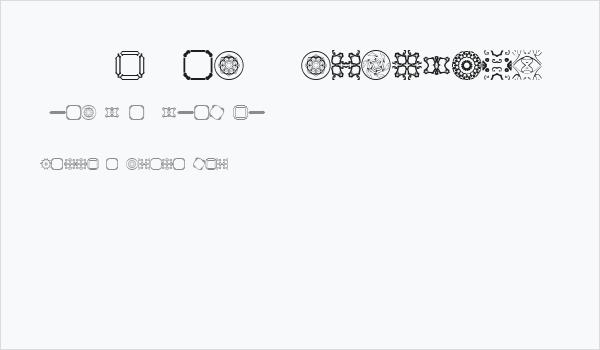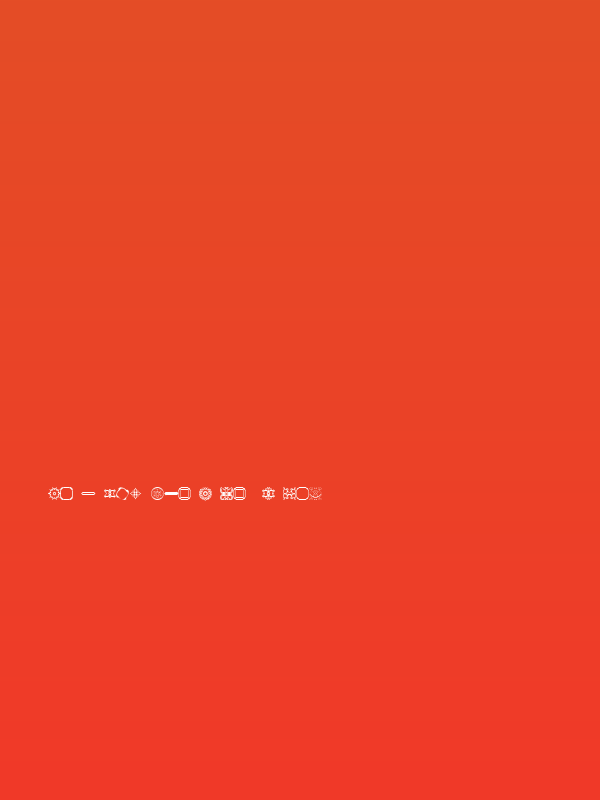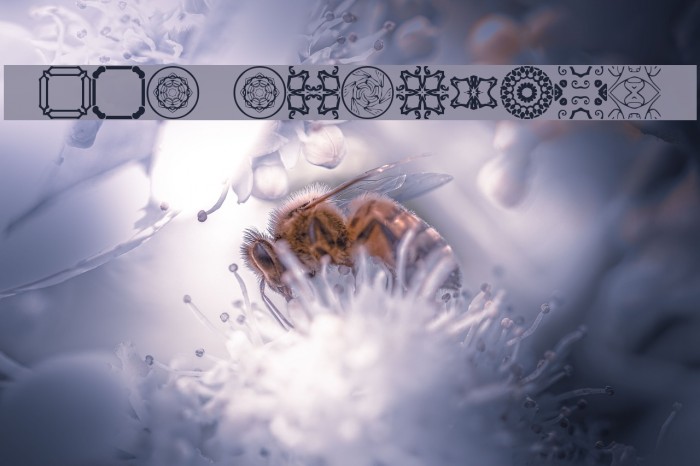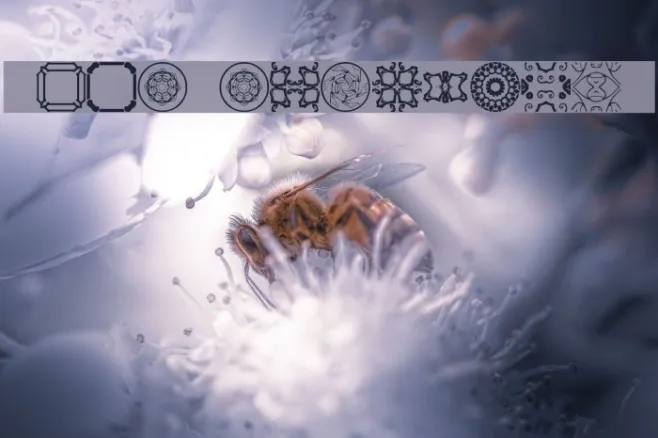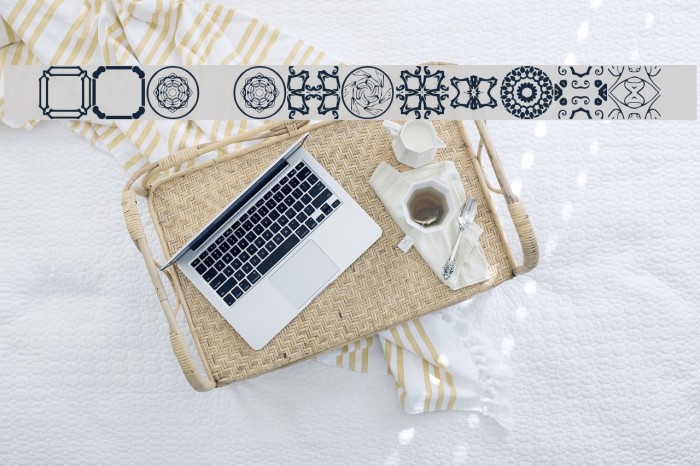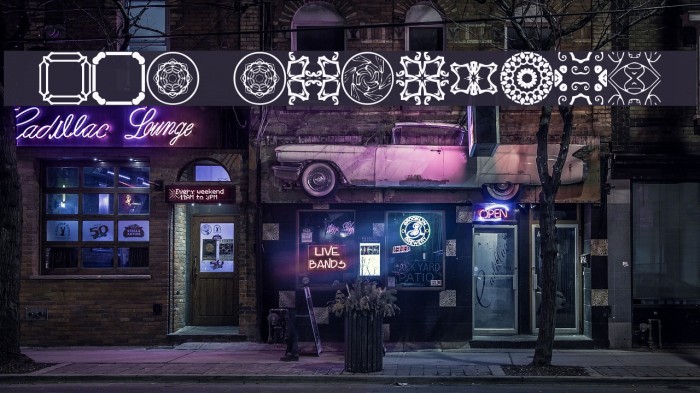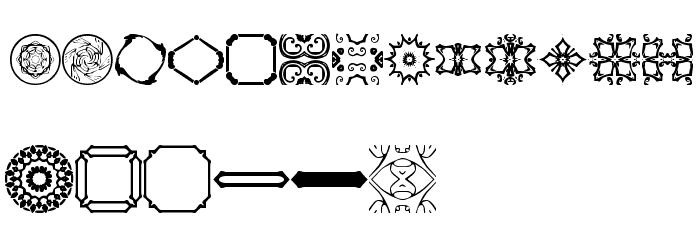
BR Nouveau Ramblings 2 Font
BR Nouveau Ramblings 2 Description
This is a decorative font featuring intricate and ornate designs reminiscent of Art Nouveau style. Each character is a unique decorative element, incorporating floral and geometric motifs. The designs are highly detailed, with a focus on symmetry and elegance, making them suitable for ornamental purposes. The characters are not traditional alphanumeric symbols but rather decorative icons that can be used to enhance visual projects with a vintage or artistic flair.
| Use Case | Logos, Decorative elements, Artistic designs |
| Proposed Projects | Ideal for decorative borders, artistic projects, vintage-themed designs, and ornamental embellishments. |